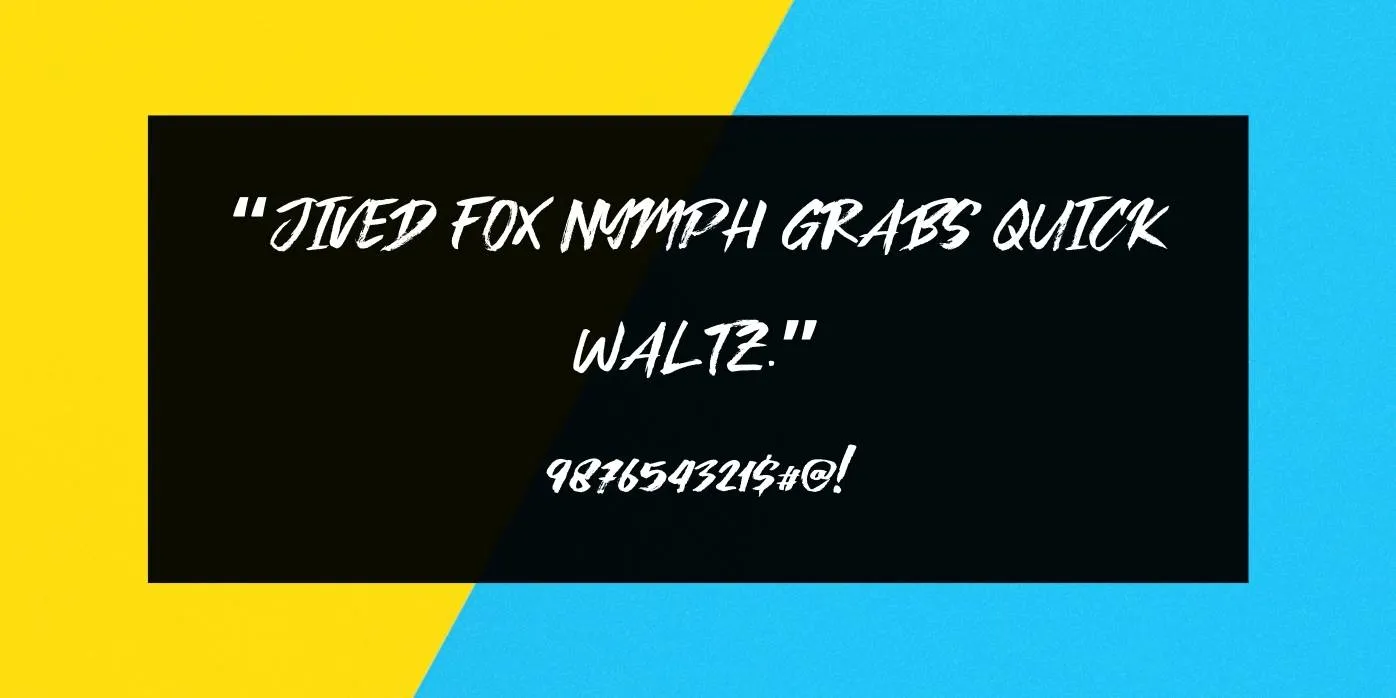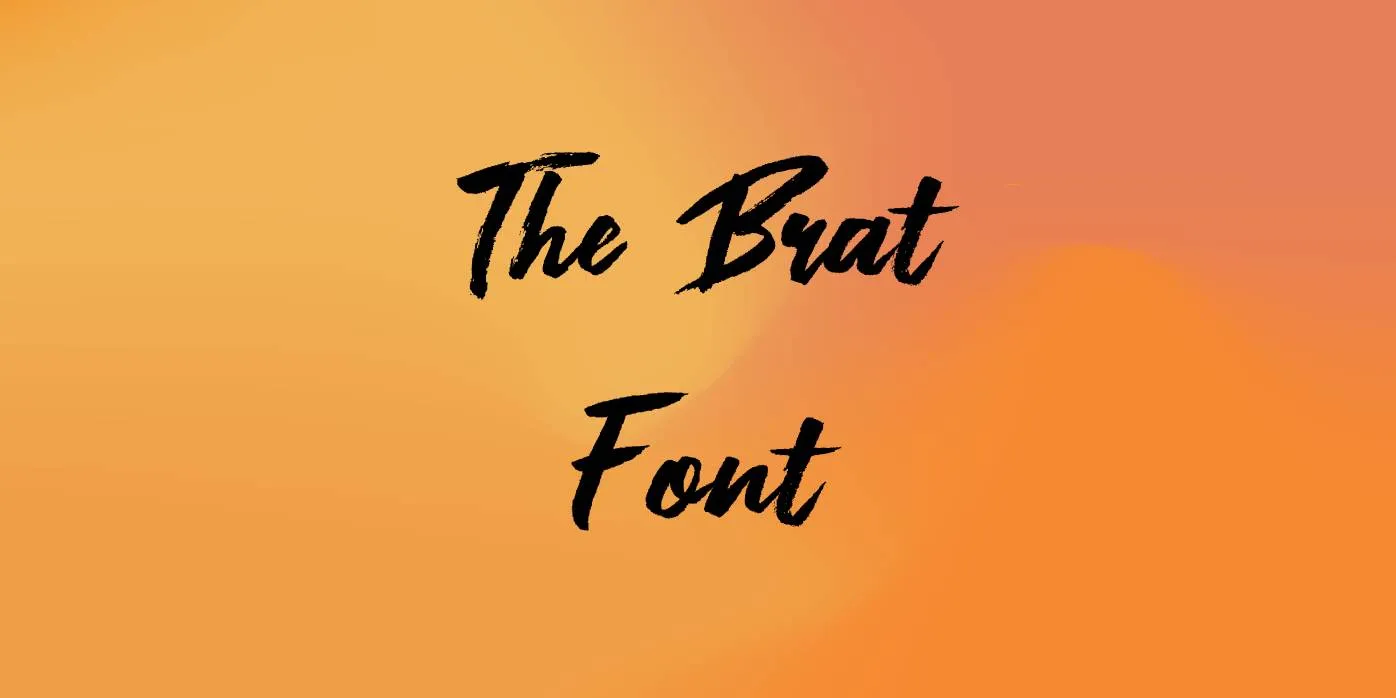
The Brat Font
The Brat Font is a brush font that was designed by Khurasan. The characters of this texture are bold, stylish, attractive, and stunning. The font that can be make a well paired with this texture is the smith mouth font. This combination pair is also helpful to give your design attractive look.